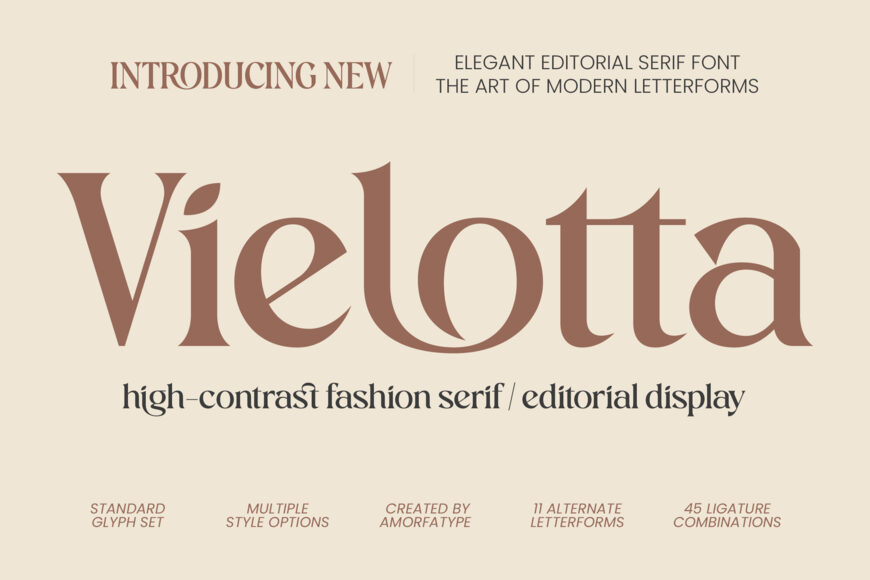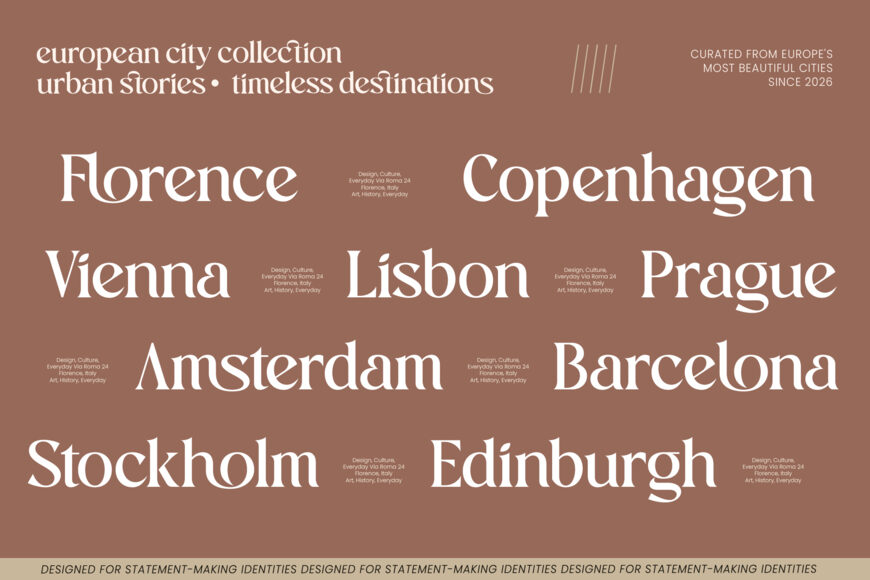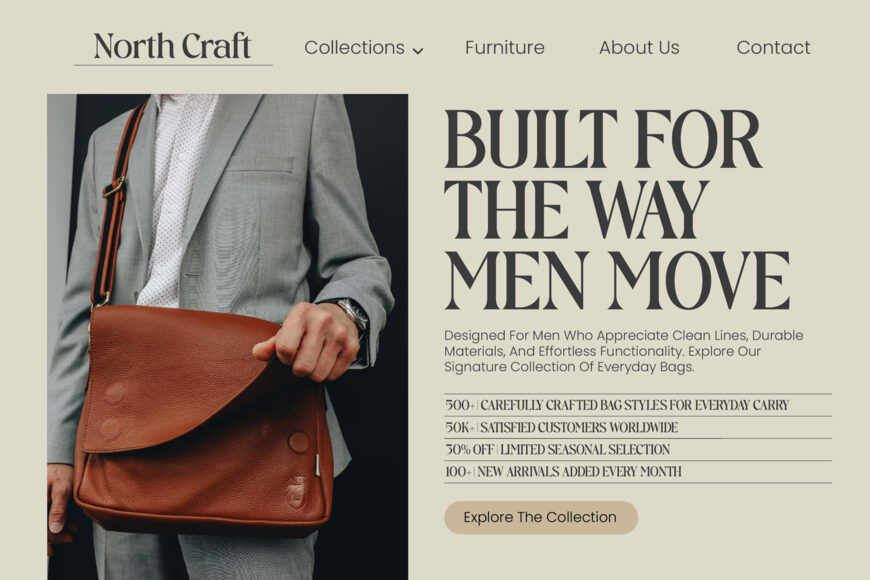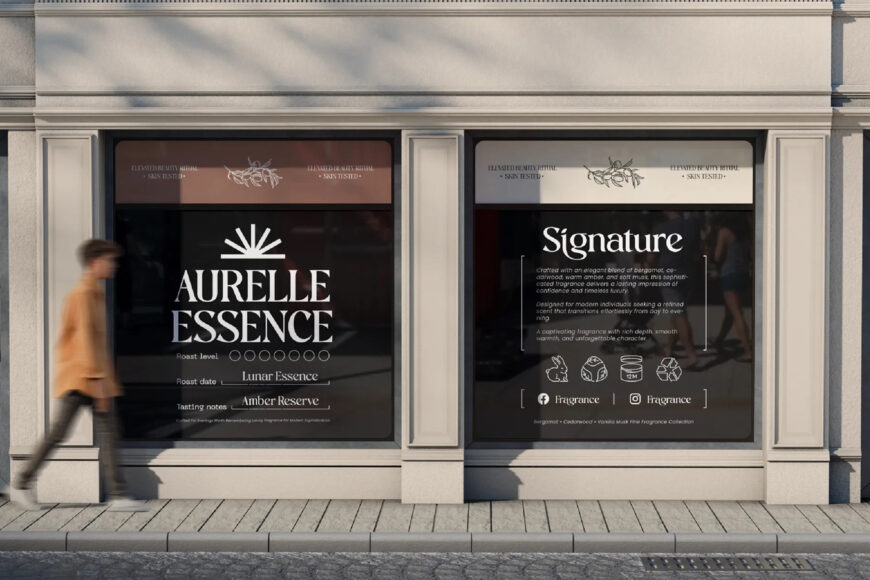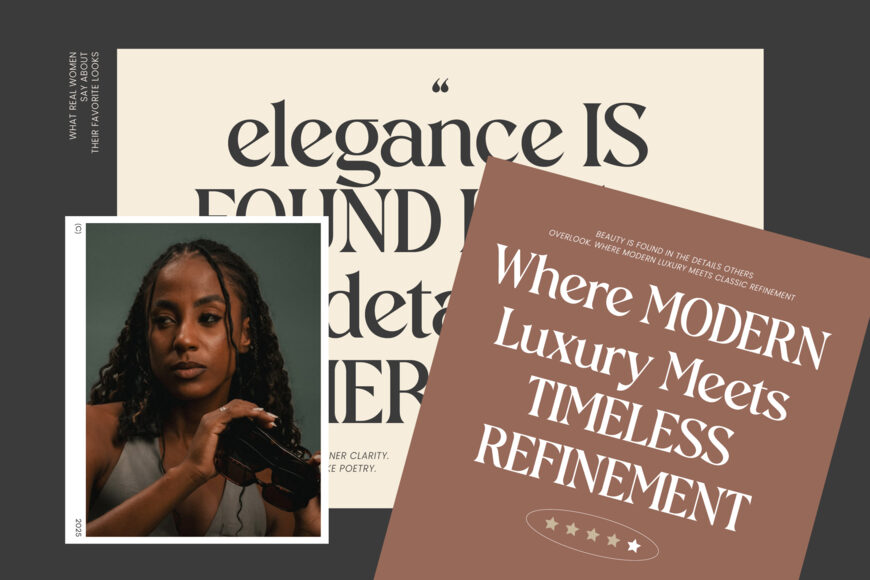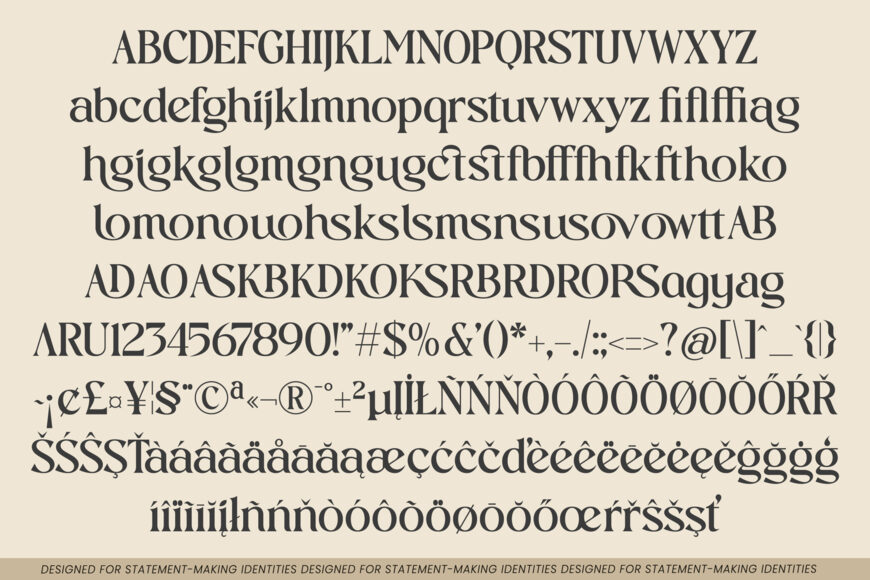
Vielotta Font
Vielotta is a high-contrast fashion serif and editorial display typeface designed to celebrate timeless elegance, refined sophistication, and contemporary luxury. Inspired by iconic fashion editorials, premium branding systems, luxury publications, and modern lifestyle aesthetics, Vielotta delivers a striking visual presence through graceful proportions, elegant contrast, and meticulously crafted details.